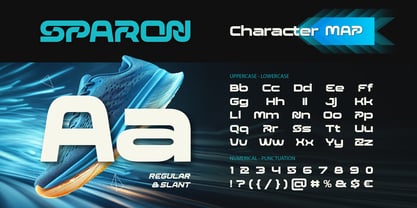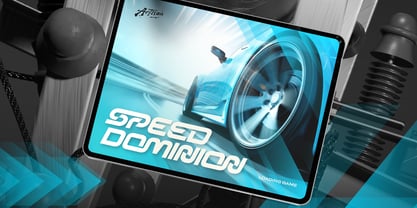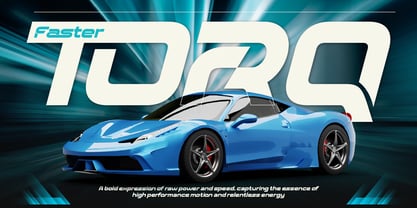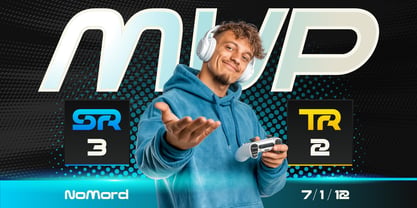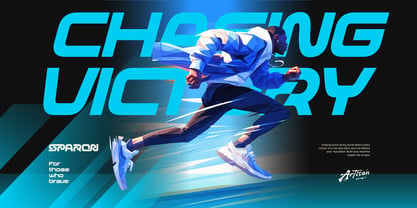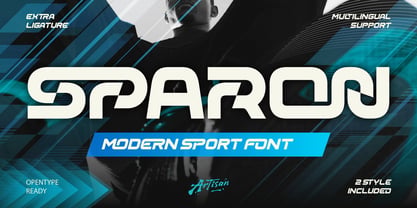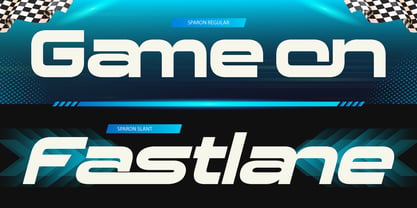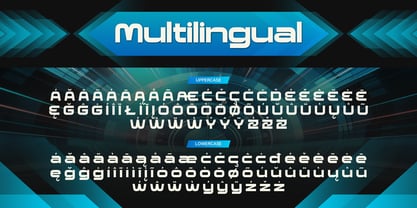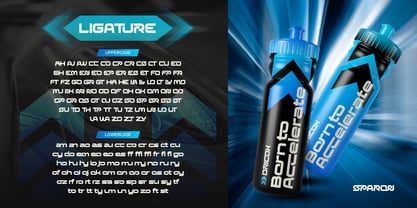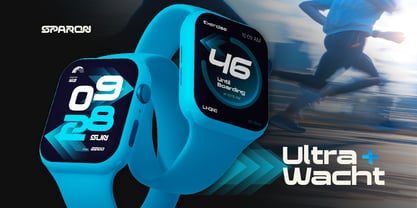
Sparon
The Sparon Font Family was designed by Meidy Meichico and published by Artisan Themes. Sparon contains 2 styles and family package options. More about this family
Sparon is a bold and dynamic modern sport font designed to capture the spirit of speed, power, and high-performance energy. With its sharp cuts, futuristic curves, and aggressive style, Sparon is perfect for designs that need to feel fast, strong, and impactful. Inspired by racing culture, automotive aesthetics, and competitive sports branding, this font brings a sense of motion and adrenaline into every letter. Whether you're working on a racing poster, sports logo, or gaming title, Sparon delivers a powerful visual punch. Sparon comes in two styles: Regular and Slant, giving you flexibility to create both stable and high-speed looks. The slanted version enhances the sense of motion, making it ideal for projects that need an extra boost of energy. Perfect For: Sports & Esports Branding, Racing & Automotive Design, Gaming Titles & UI, Tech & Futuristic Projects, Posters, Headlines & Banners, YouTube Thumbnails & Social Media Graphics Features: A - Z set (Uppercase & Lowercase), Number, Punctuation, Alternates, Ligatures, Multilingual